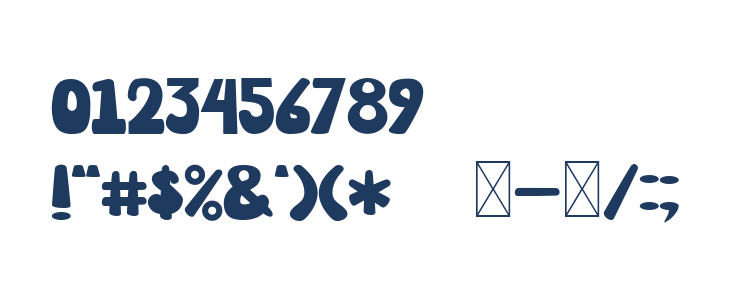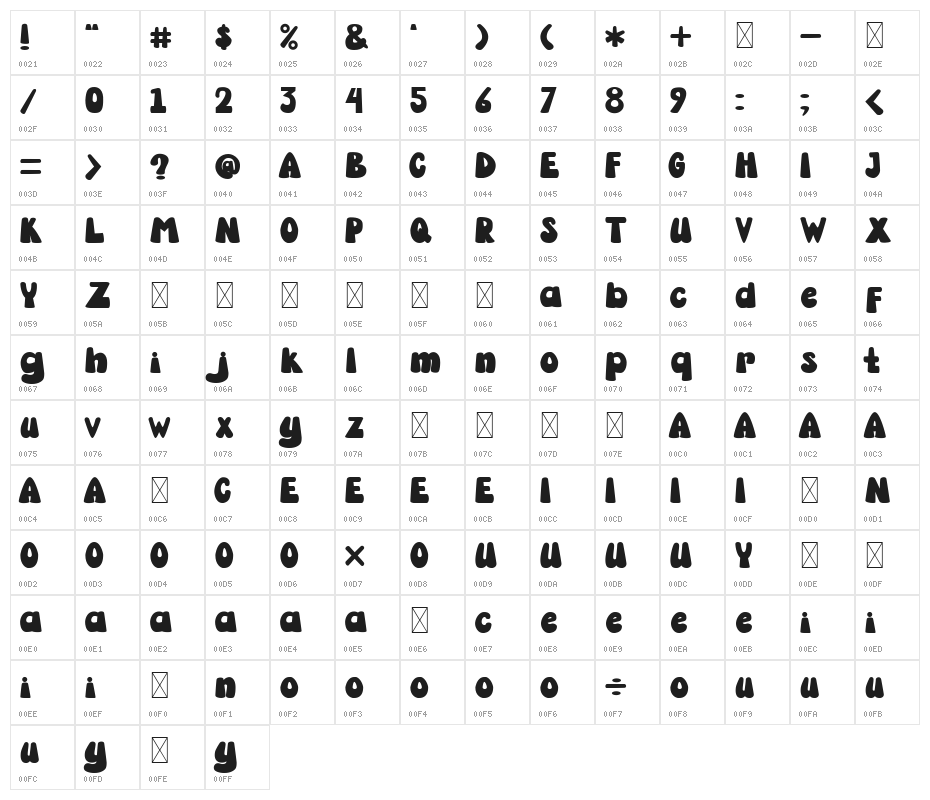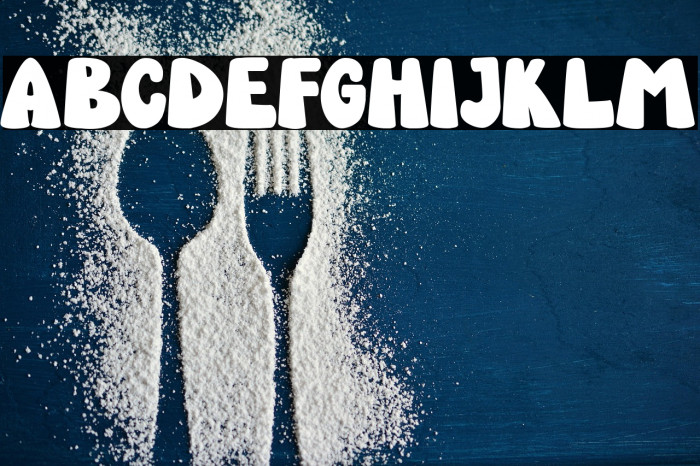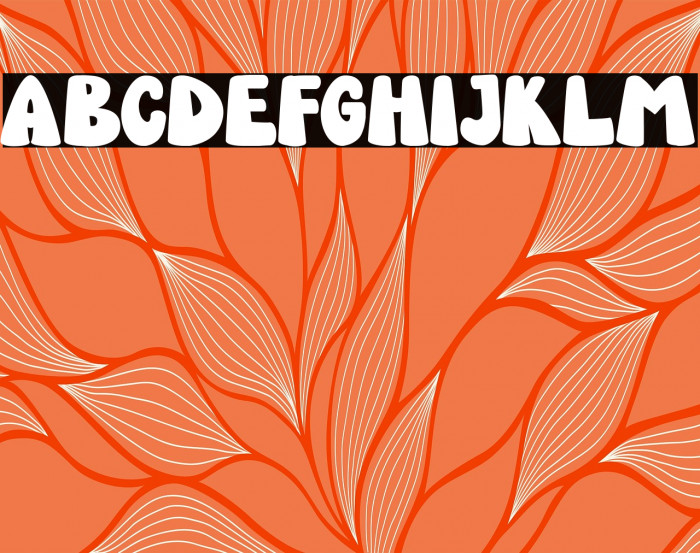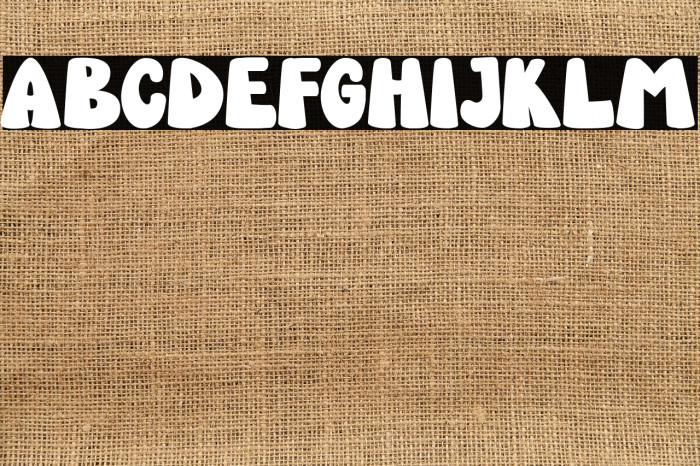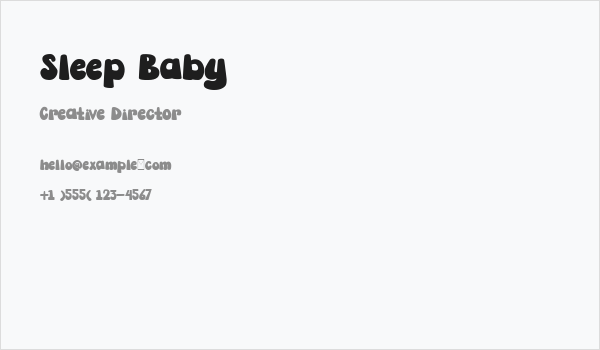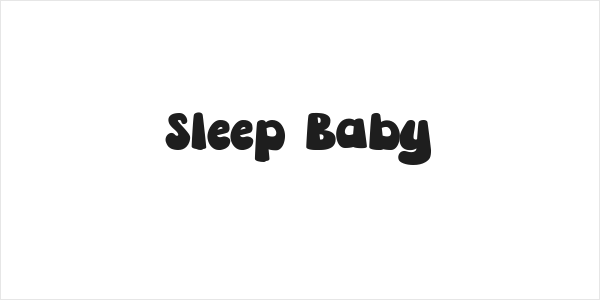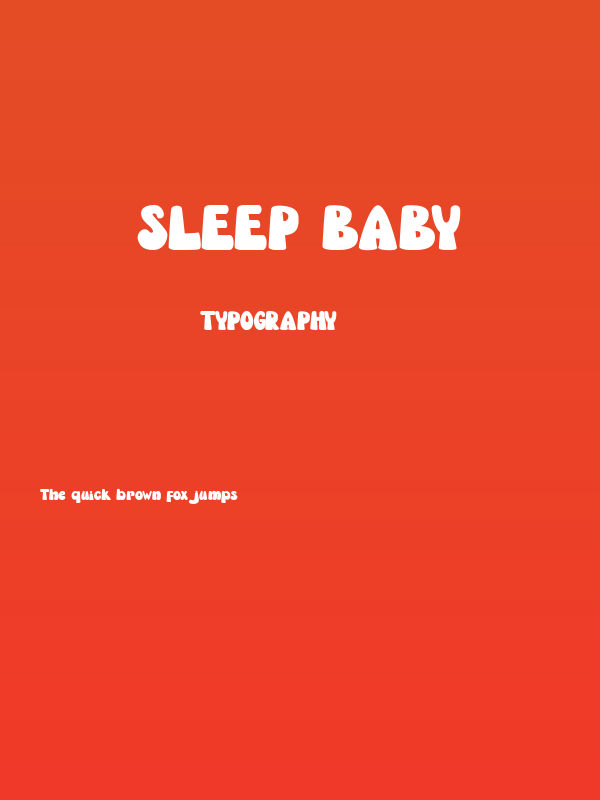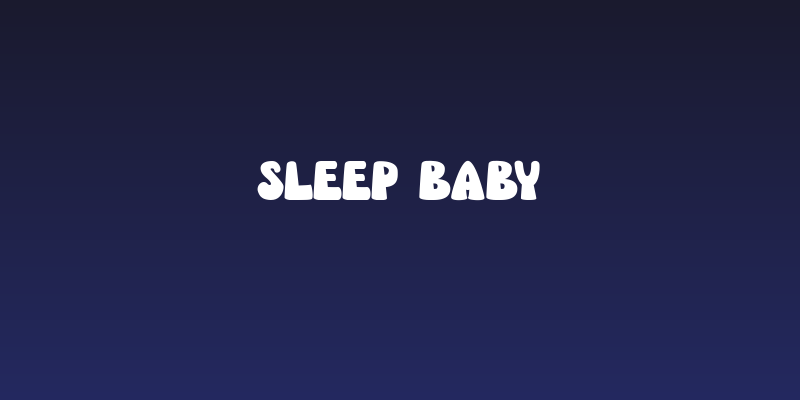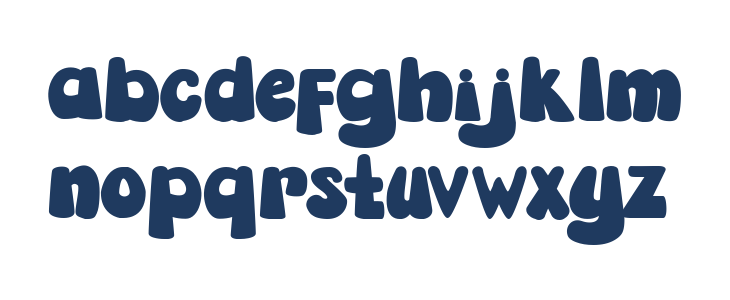
Sleep Baby Font
Sleep Baby Description
This playful and bold font features rounded, thick characters that exude a sense of fun and whimsy. The letters are uniformly wide with a slightly irregular shape, giving them a hand-drawn appearance. The uppercase and lowercase letters maintain a consistent style, with the lowercase letters being slightly more compact. Numbers and special characters follow the same design ethos, ensuring a cohesive look across all text elements. The font's boldness and unique style make it stand out, while its rounded edges soften its overall impact, making it suitable for friendly and approachable designs.